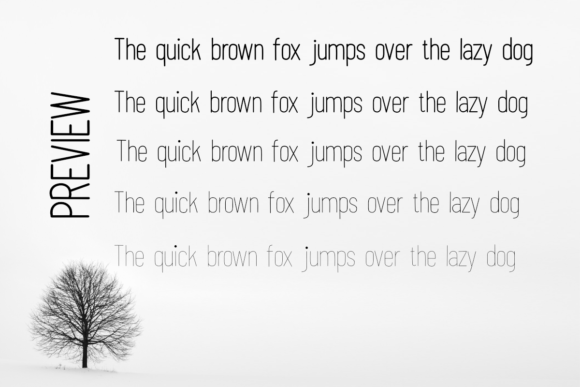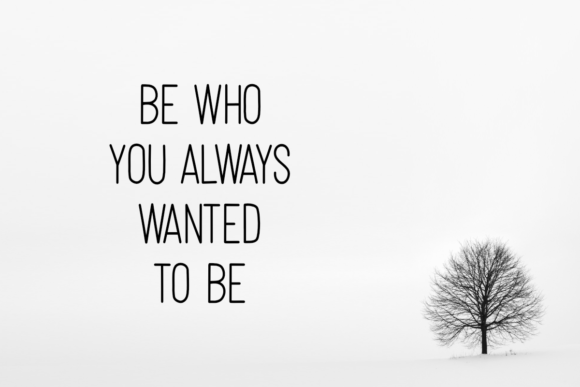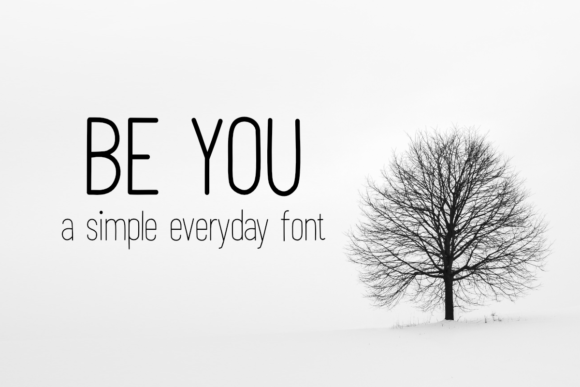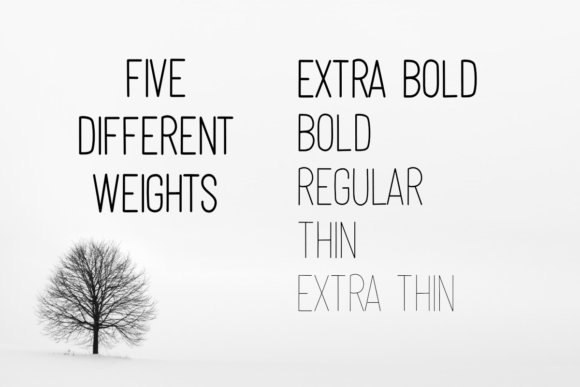
Be You Font: Minimalist Sans Serif for Modern Logo Design & Branding
About the Be You Font
Add a touch of class to your work with the Be You Font, a truly exceptional typeface. Be You is a minimal and neat sans serif font. It can easily be matched to an incredibly large set of projects, so add it to your creative ideas and notice how it makes them stand out!
Be You Font Usage Examples